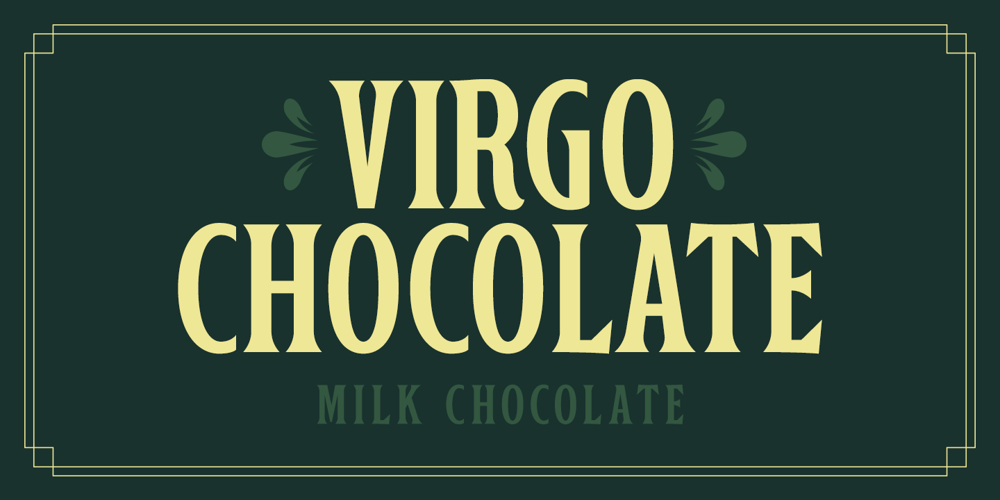
VTC Horoscope
VTC Horoscope font
VTC Horoscope Font Family was designed by Sean Coady and published by Vintage Type Company. VTC Horoscope contains 1 styles and family package options. VTC Horoscope is a modern & minimalist rendition of a Victorian-esque style typeface. Much like the typefaces of that time, this font has high stroke contrast, smooth serifs, and a slightly extended x-height, however it ditches the flourishes & fluff for weight & legibility. VTC Horoscope makes the perfect font for packaging design, big bold headlines, vintage inspired projects, or anywhere you want to spark curiosity and attention.